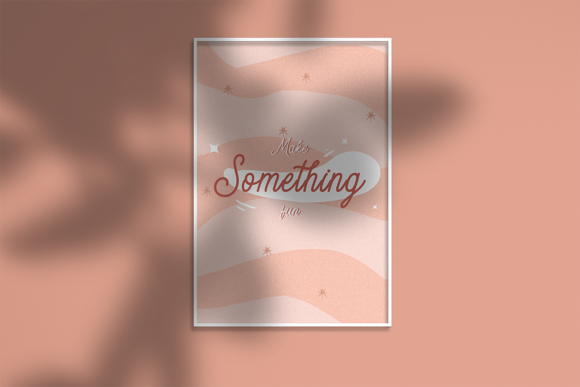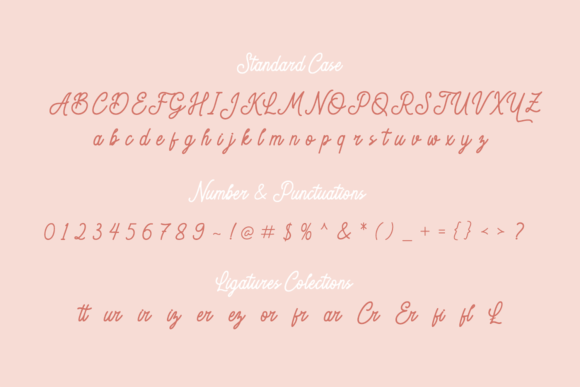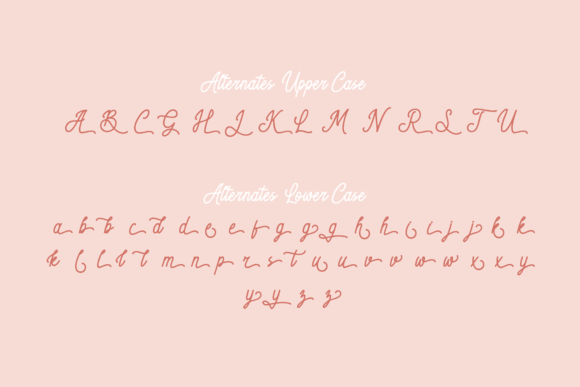
About Genora Font
Genora is a beautiful and vintage styled script font. It looks stunning on wedding invitations, thank you cards, quotes, greeting cards, logos, business cards and every other design which needs a customized touch.